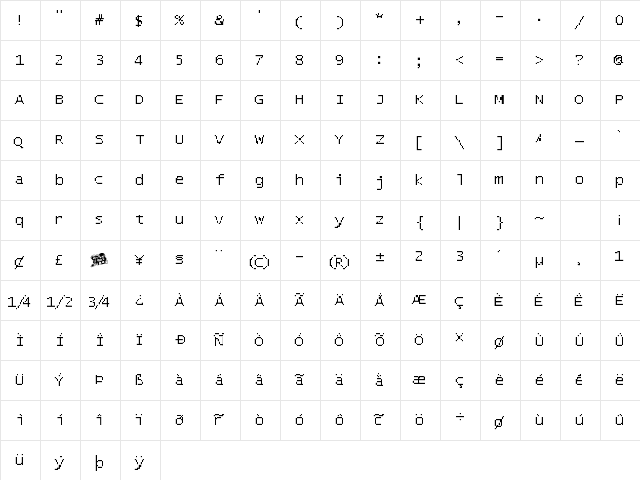
Microshaft Error Font Regular
Design Context for Microshaft Error Font Typeface
Microshaft Error Font takes a measured approach to typography — its balanced proportions and neutral character make it a reliable workhorse for both digital and print work.
Pro Tip: Use Microshaft Error Font in both headline and body roles to test its range before committing to a single application.